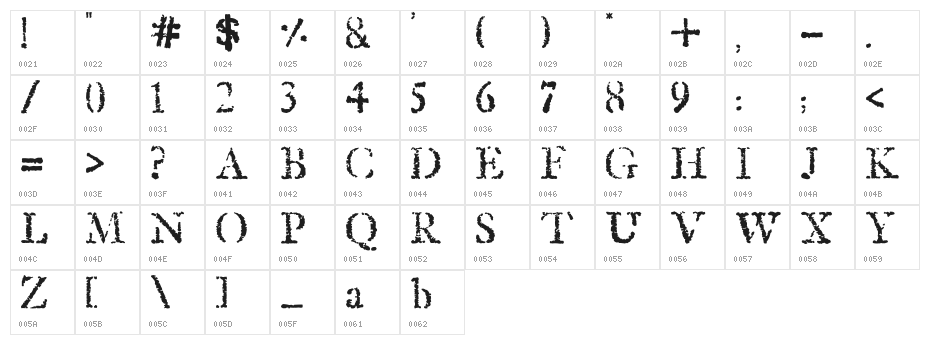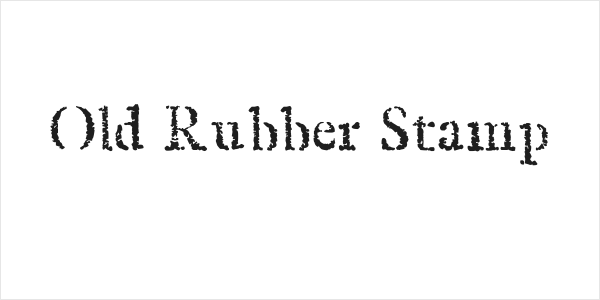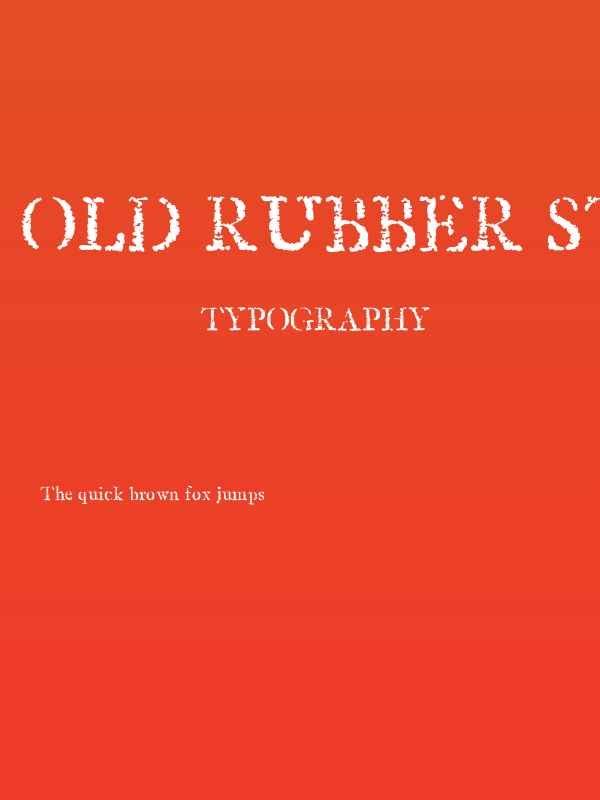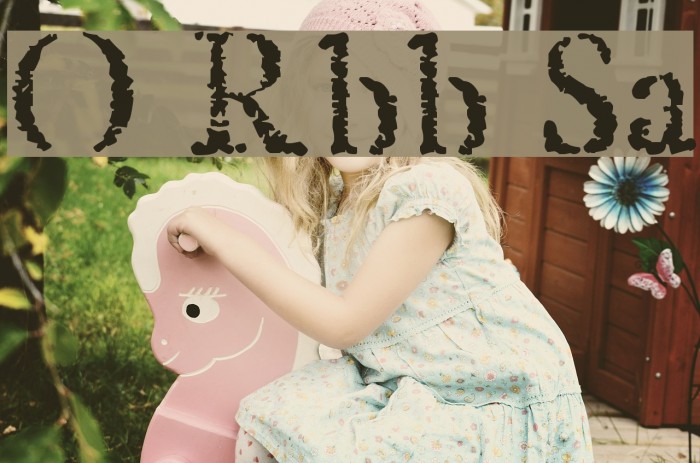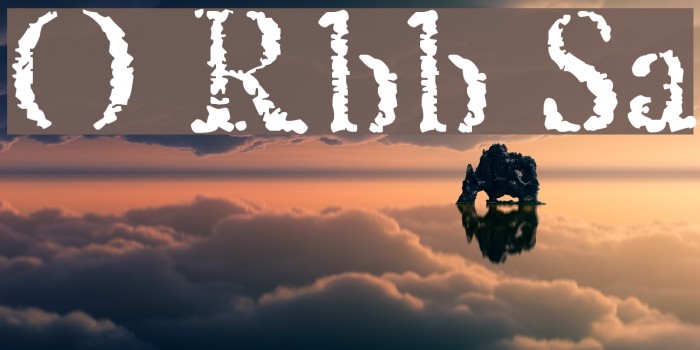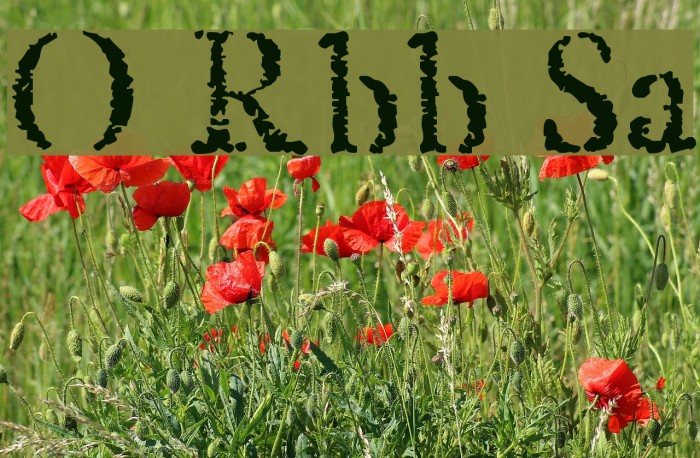
Old Rubber Stamp Font
Old Rubber Stamp Description
This font exudes a rugged, distressed aesthetic reminiscent of vintage rubber stamps. Each character is marked by a textured, worn appearance, giving it a unique, handcrafted feel. The uppercase and lowercase letters maintain a consistent style, with irregular edges and a slightly faded look that adds to its authenticity. Numbers and special characters follow the same design, ensuring a cohesive appearance across all text. The font's bold presence makes it ideal for projects that require a touch of nostalgia or a rustic, industrial vibe.
| Overall Style | Vintage |
| Proposed Projects | Ideal for vintage-themed designs, posters, branding, and packaging that require a rustic or industrial touch. |